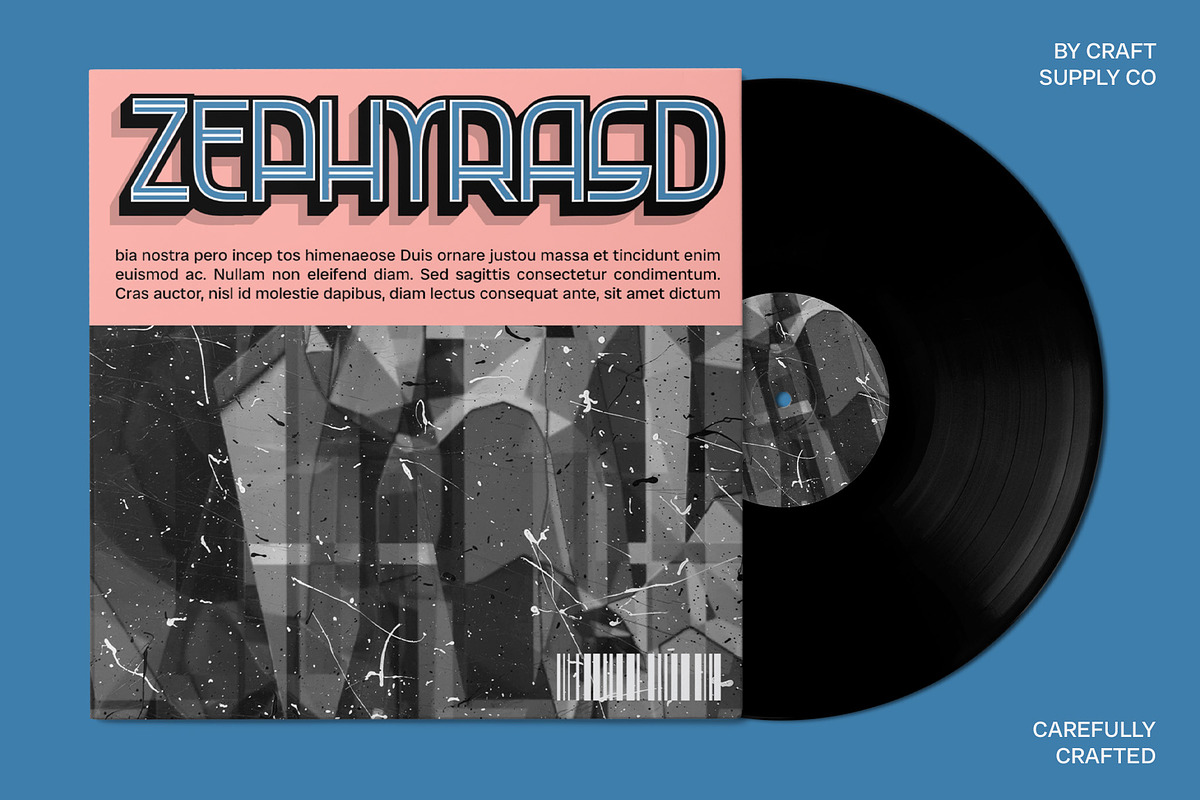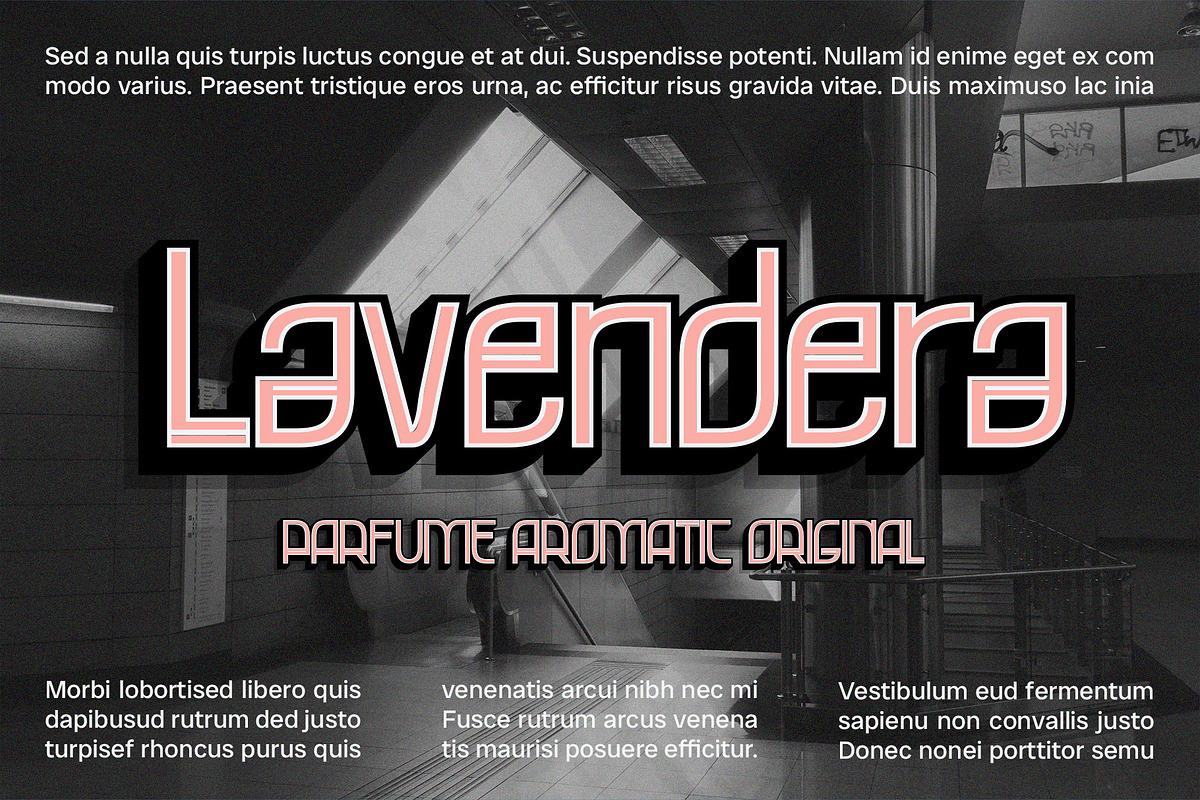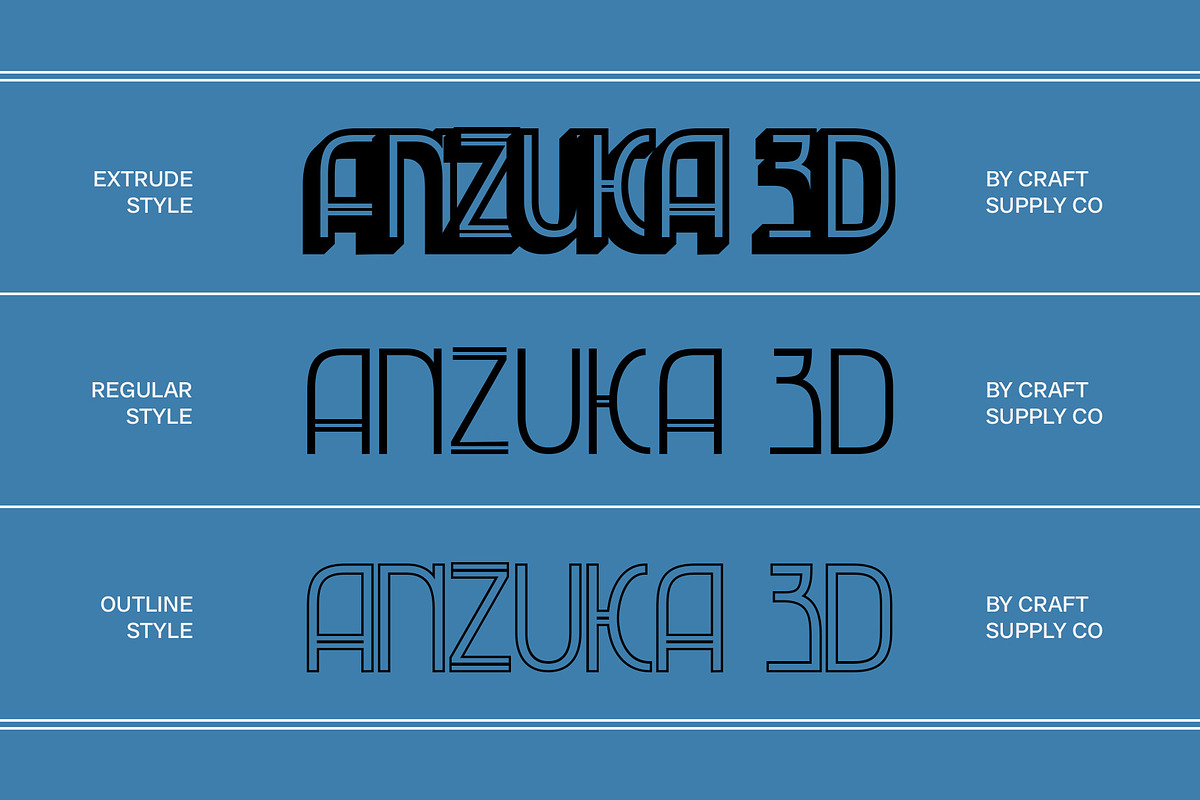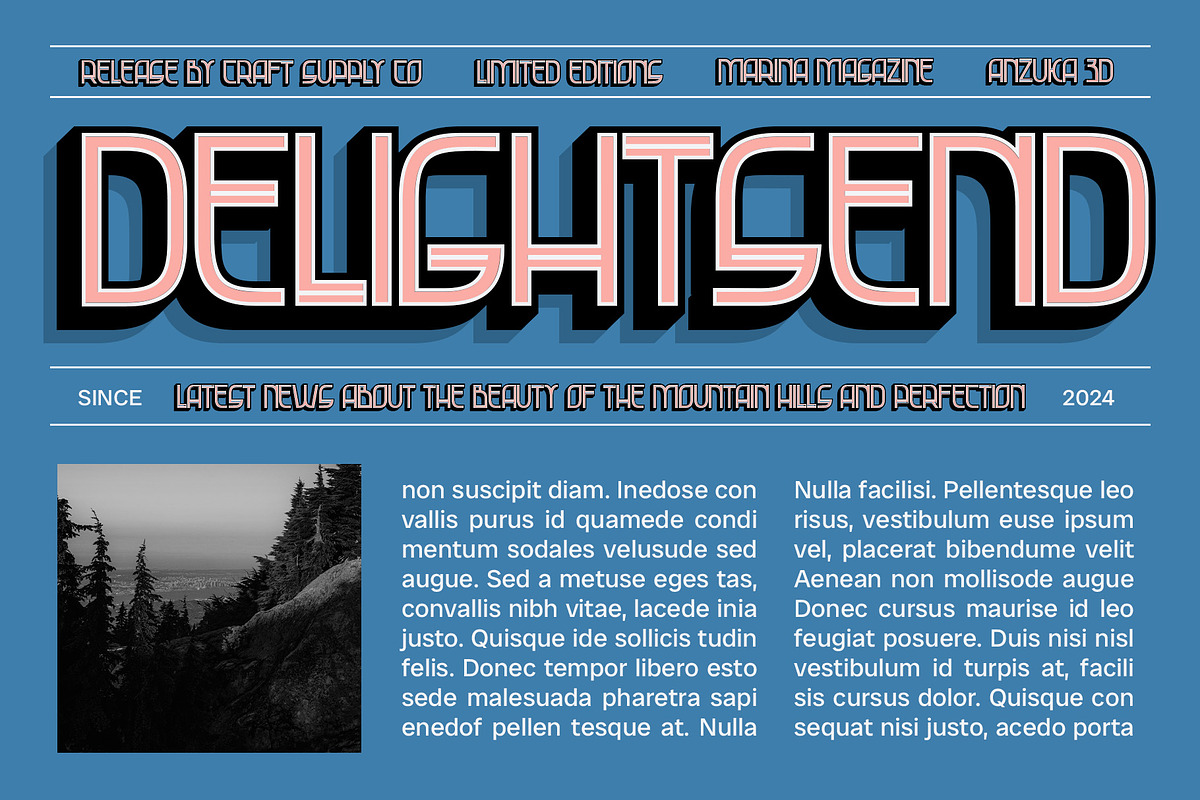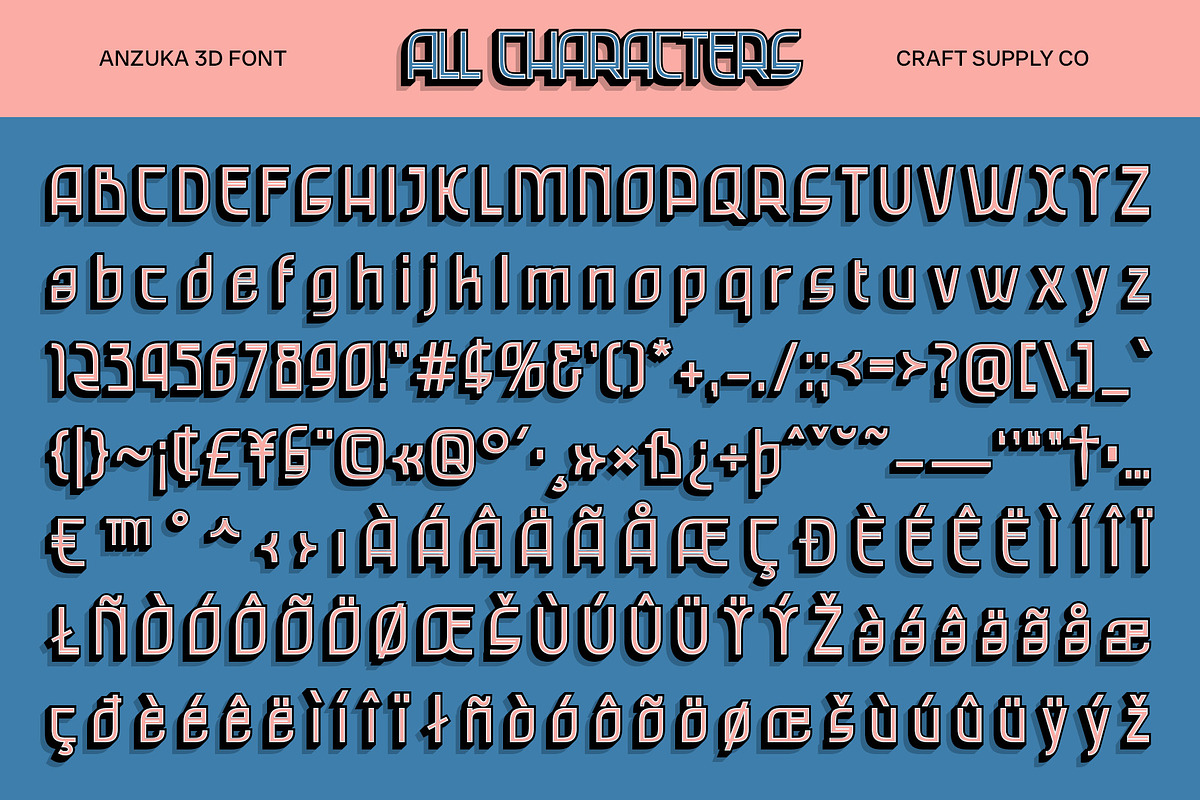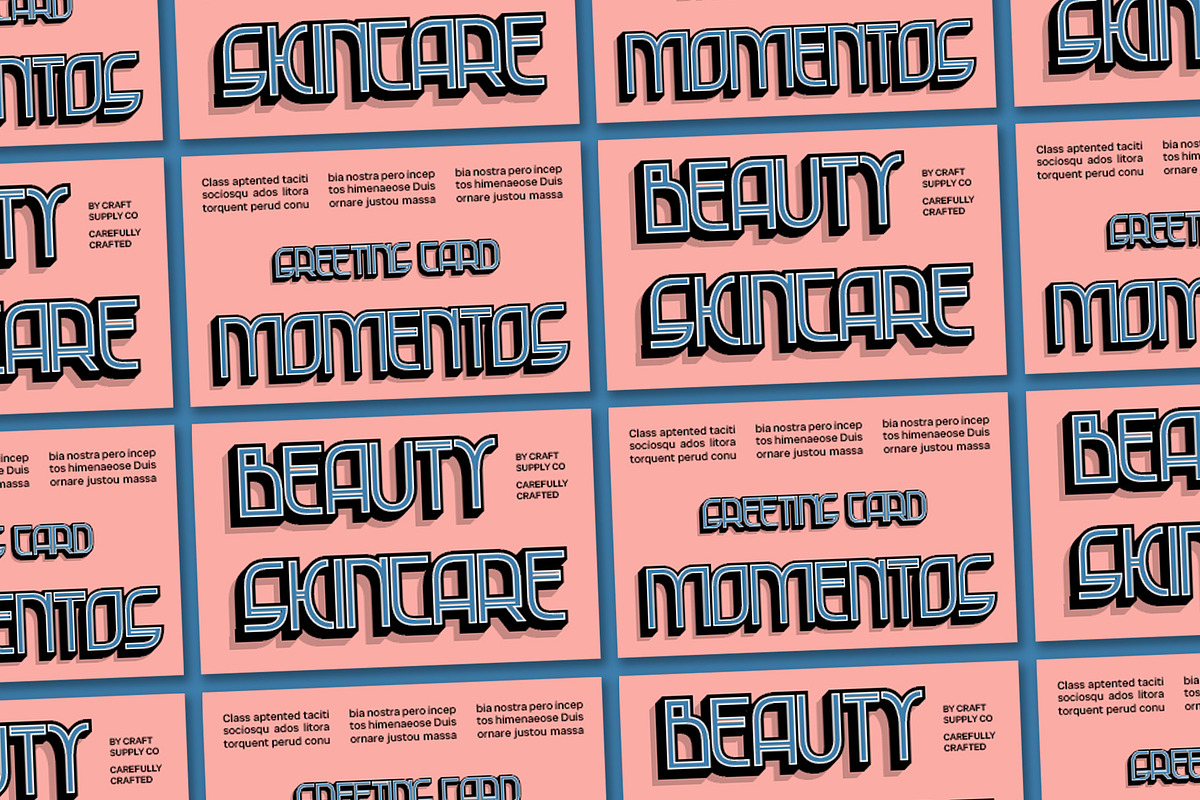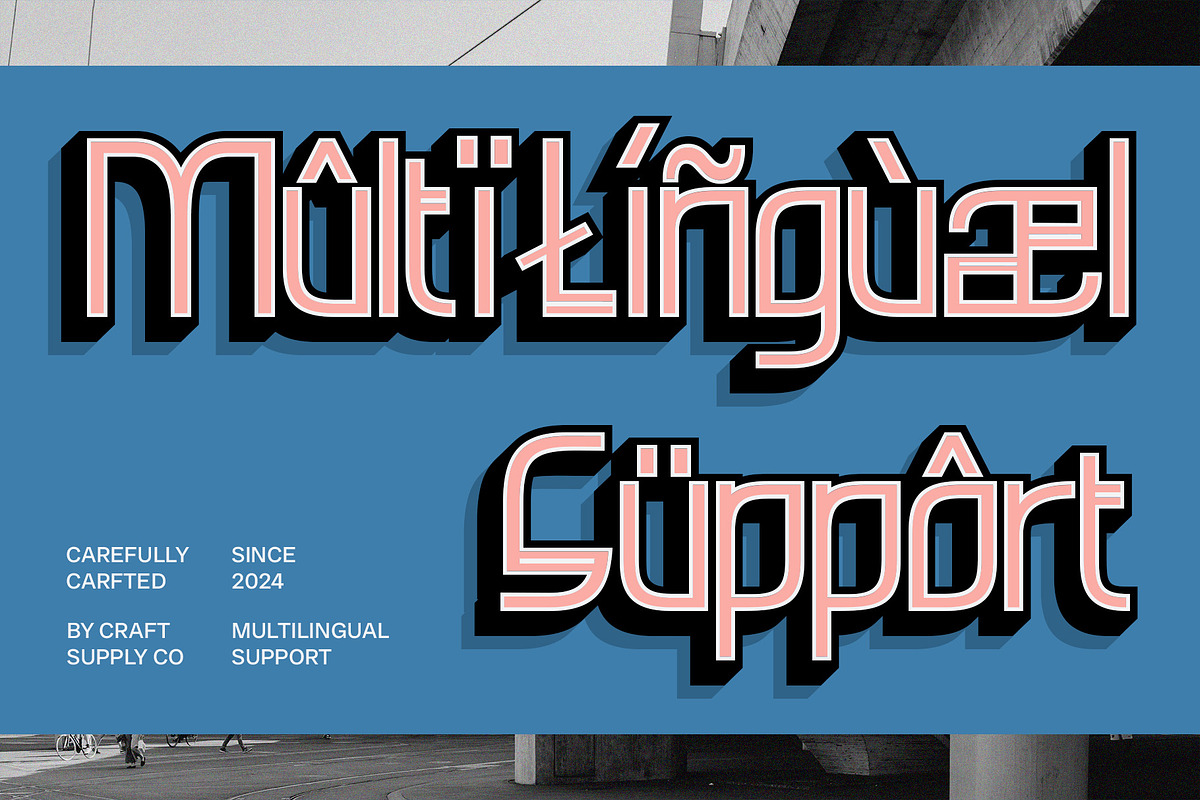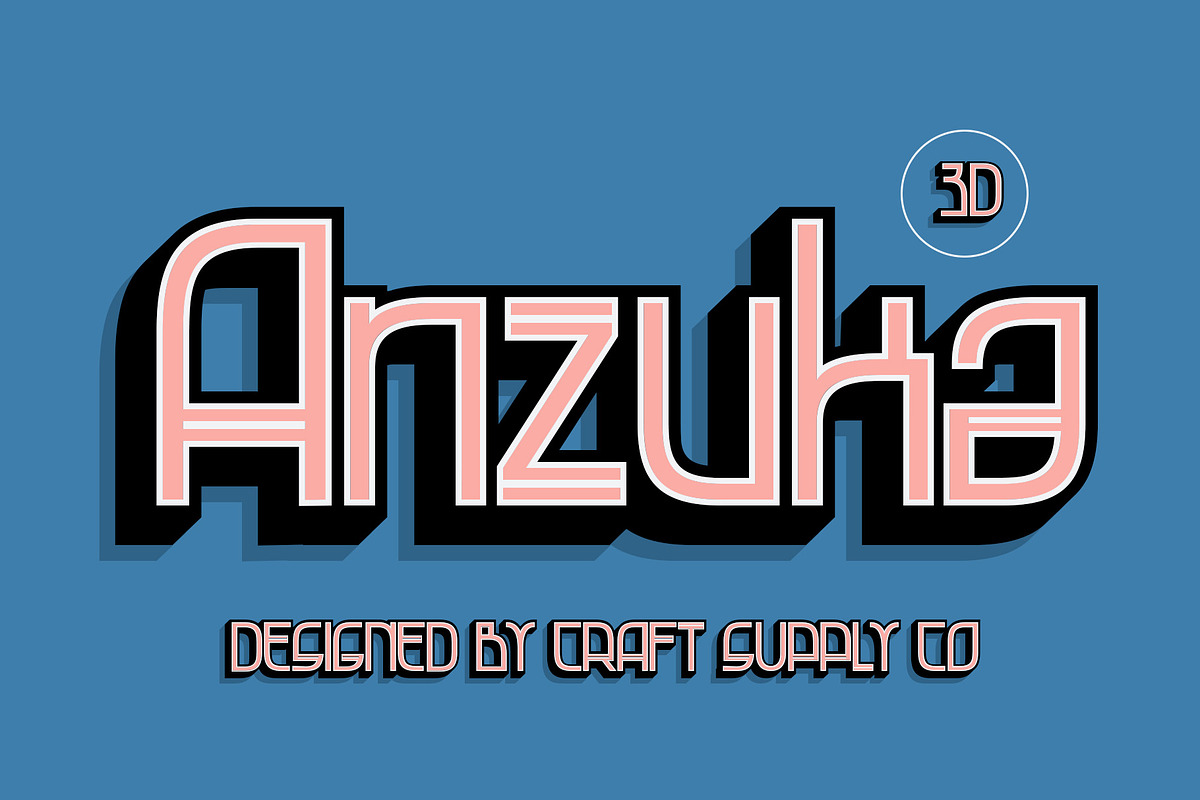
Anzuka 3D
Anzuka 3D Font: Modern Art Deco Elegance
Sleek Geometry Meets Elegant Sophistication Anzuka 3D is a modern sans-serif font that embodies the timeless elegance of Art Deco with a contemporary 3D twist. Featuring sleek, geometric shapes and refined lines, it offers a sophisticated and visually striking appearance that stands out in high-end designs.
Ideal for High-End Branding and Stylish Projects The combination of Art Deco inspiration and 3D depth creates a unique visual impact, making Anzuka 3D perfect for upscale branding, luxury advertisements, and stylish design projects. Its elegant form and dynamic effect ensure that your messages are both captivating and memorable.
Art Deco Charm with a Modern Edge The font’s geometric precision and 3D effect merge classic Art Deco charm with a modern edge, providing a unique and luxurious touch to any design. Ideal for use in high-end branding, editorial layouts, and promotional materials, Anzuka 3D adds a layer of sophistication and innovation.
Elevate Your Visuals Anzuka 3D’s blend of Art Deco elegance and modern dimensionality offers a striking and refined aesthetic. It’s the perfect choice for designs that seek to make a bold statement with a touch of vintage sophistication and contemporary flair.
- Anzuka Regular
- Anzuka Outline
- Anzuka Extrude Right
- Anzuka Extrude Left